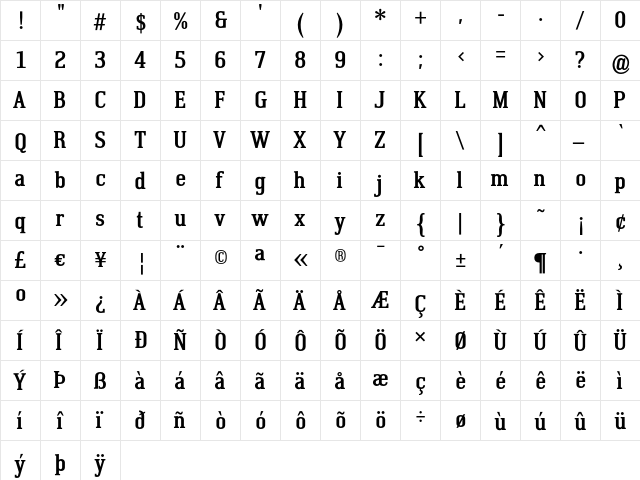
Krasivyi Bold
Design Context for Krasivyi Typeface
Krasivyi is a composed and adaptable typeface that performs quietly and consistently across a wide range of design contexts. Its bold stroke weight gives it real presence on the page.
Pro Tip: Pair Krasivyi with a font of contrasting weight or personality to build a more expressive typographic hierarchy.